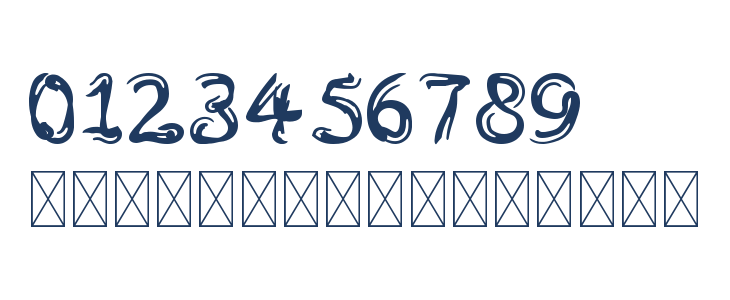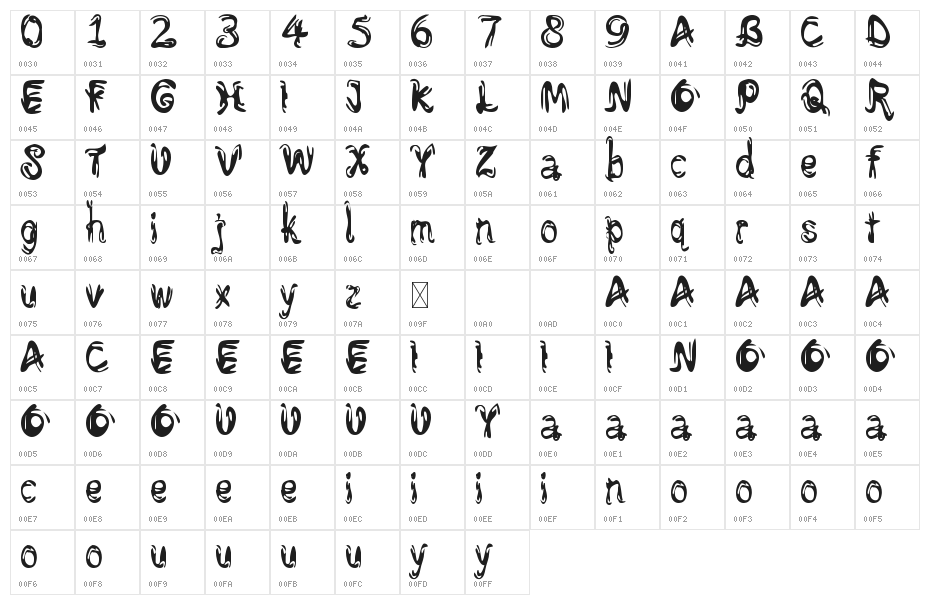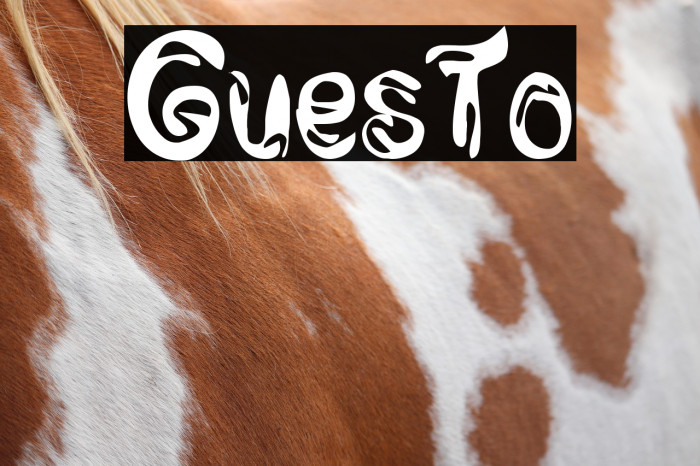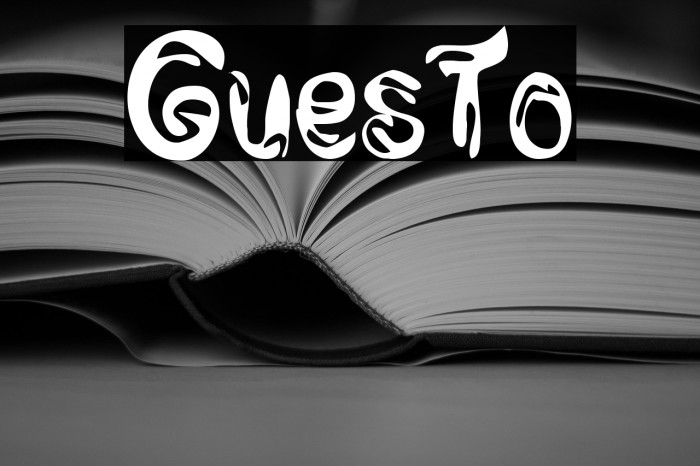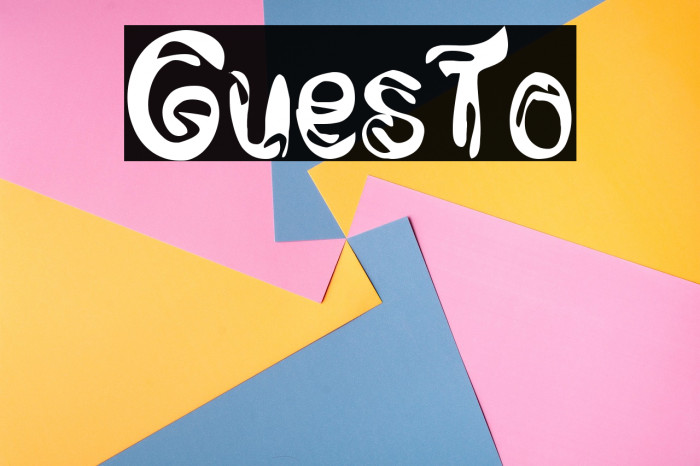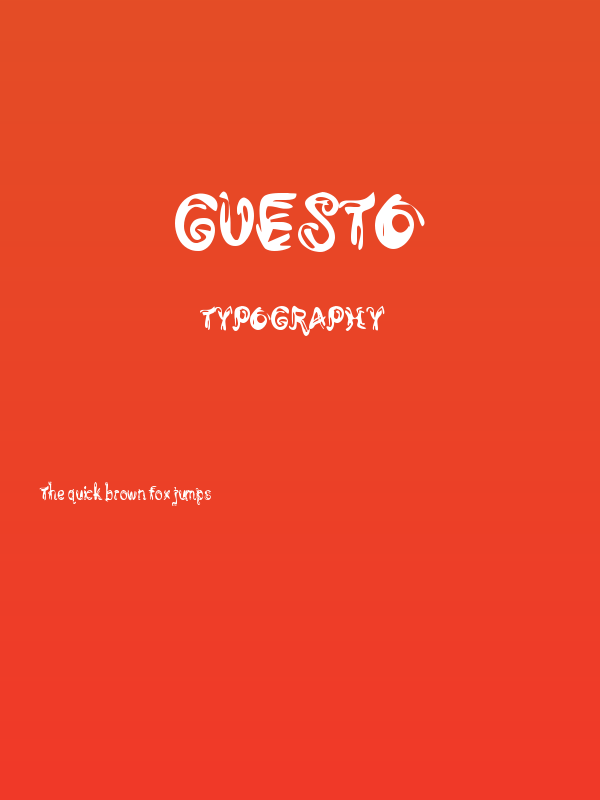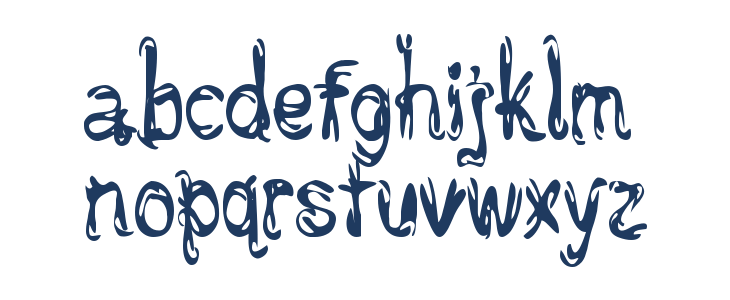
GuesTo Font
GuesTo Description
This font features a highly decorative and artistic style with a unique, flowing design. Each character is crafted with intricate curves and swirls, giving it a whimsical and playful appearance. The bold strokes and varying thicknesses create a dynamic visual impact, making it stand out in any design. The font's elaborate details and creative flair make it suitable for projects that require a touch of fantasy or artistic expression. Its distinctiveness is perfect for capturing attention and adding a creative twist to any text.
| Use Case | Headlines, Logos, Artistic projects |
| Proposed Projects | Ideal for creative projects such as posters, album covers, artistic branding, and event invitations. |